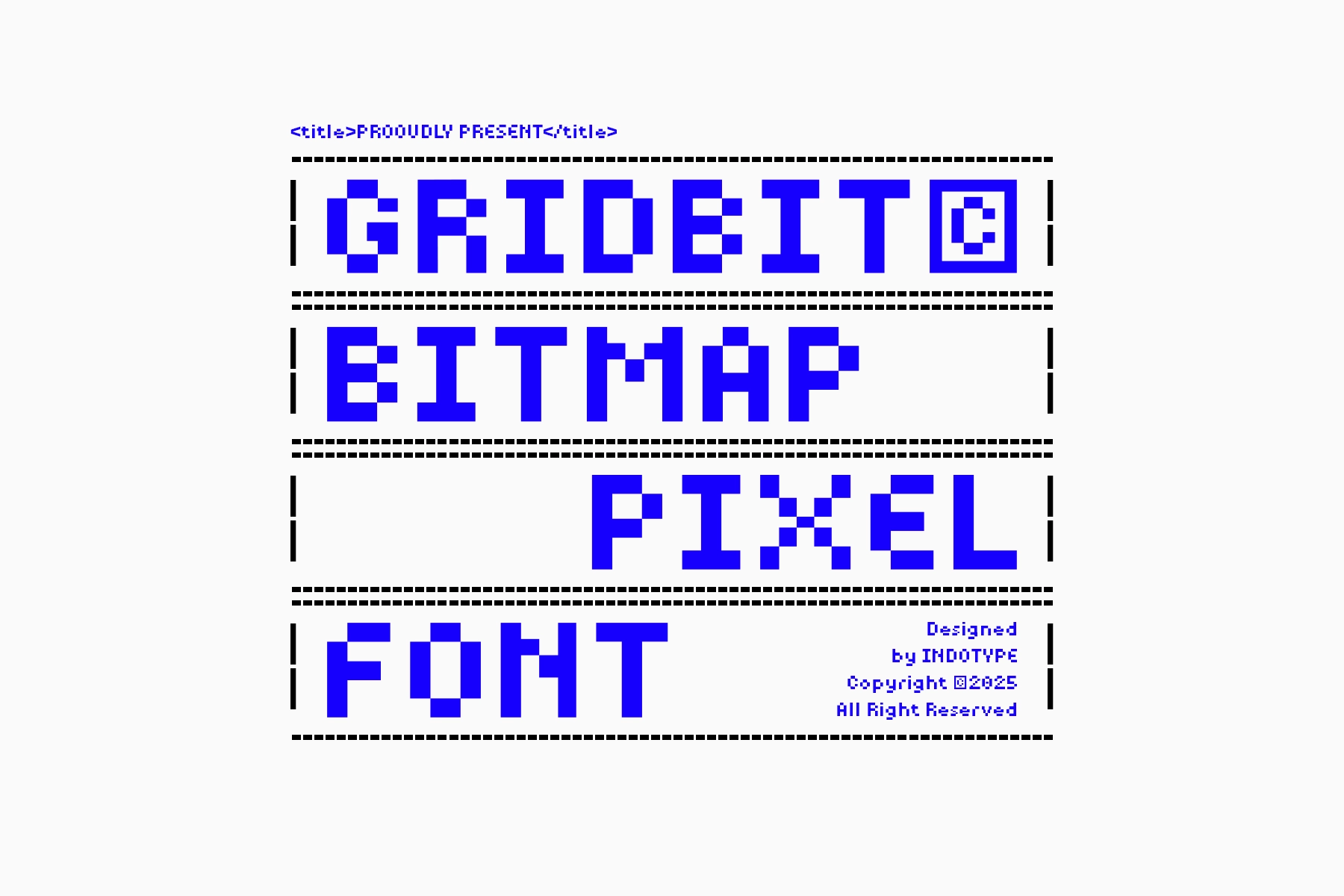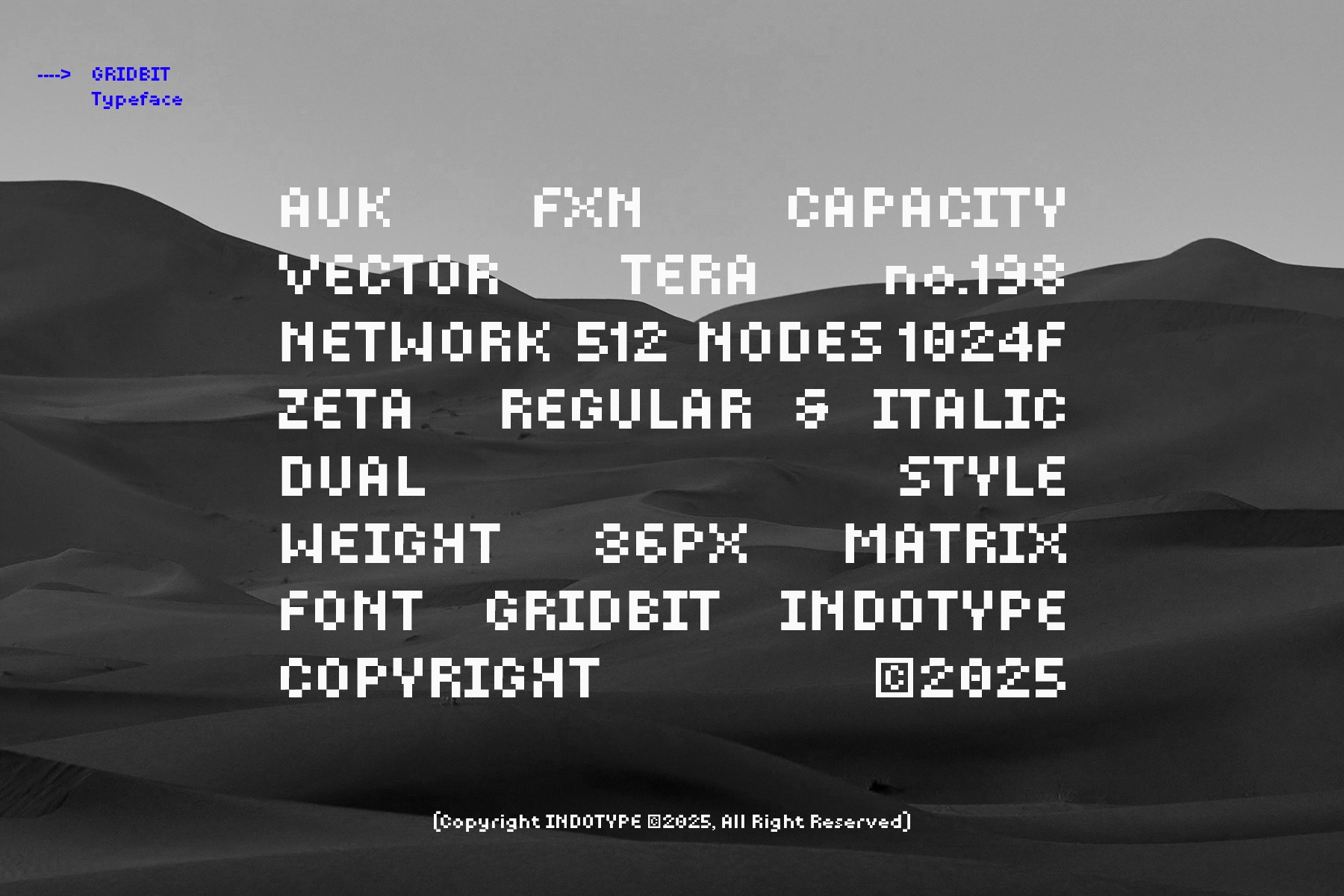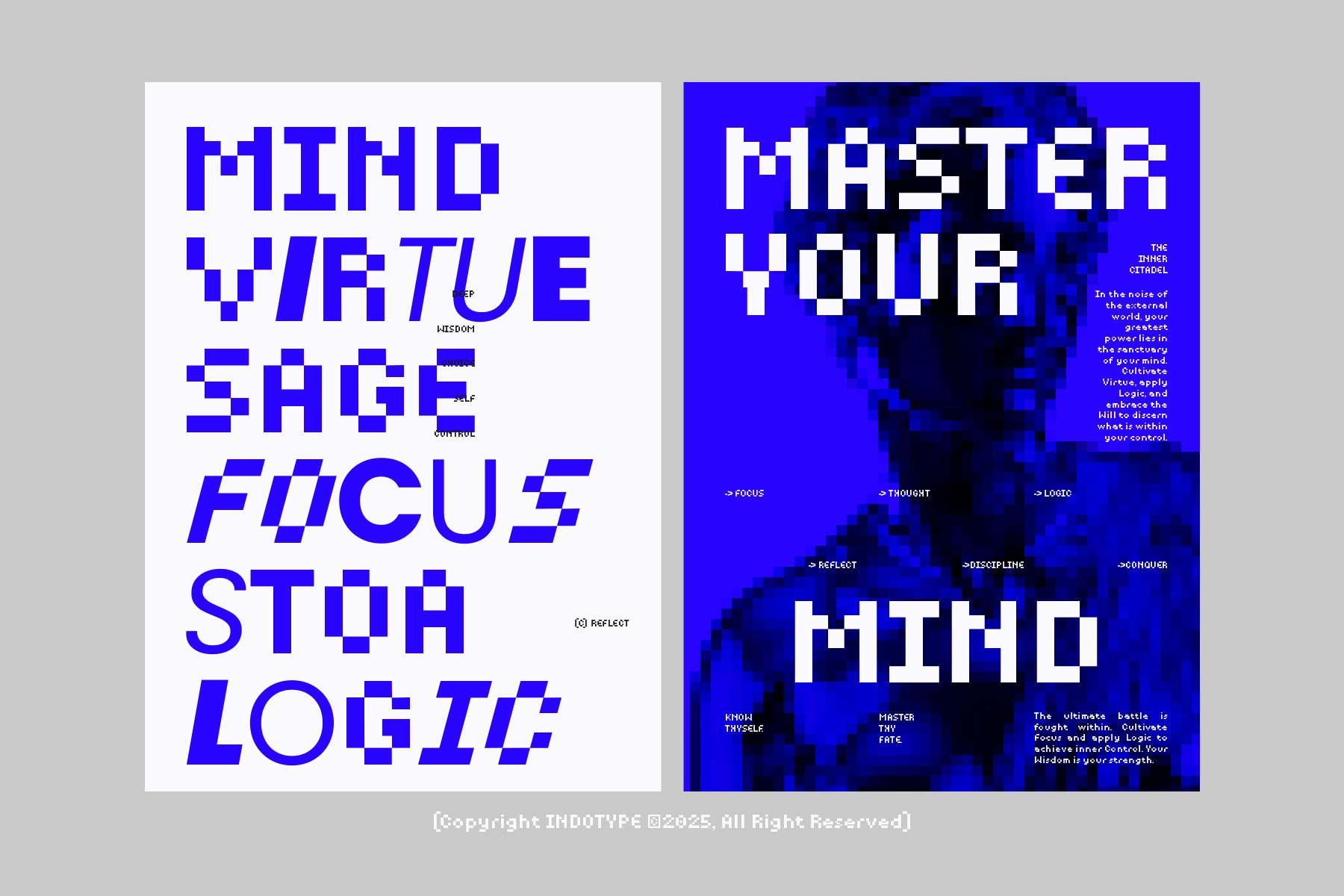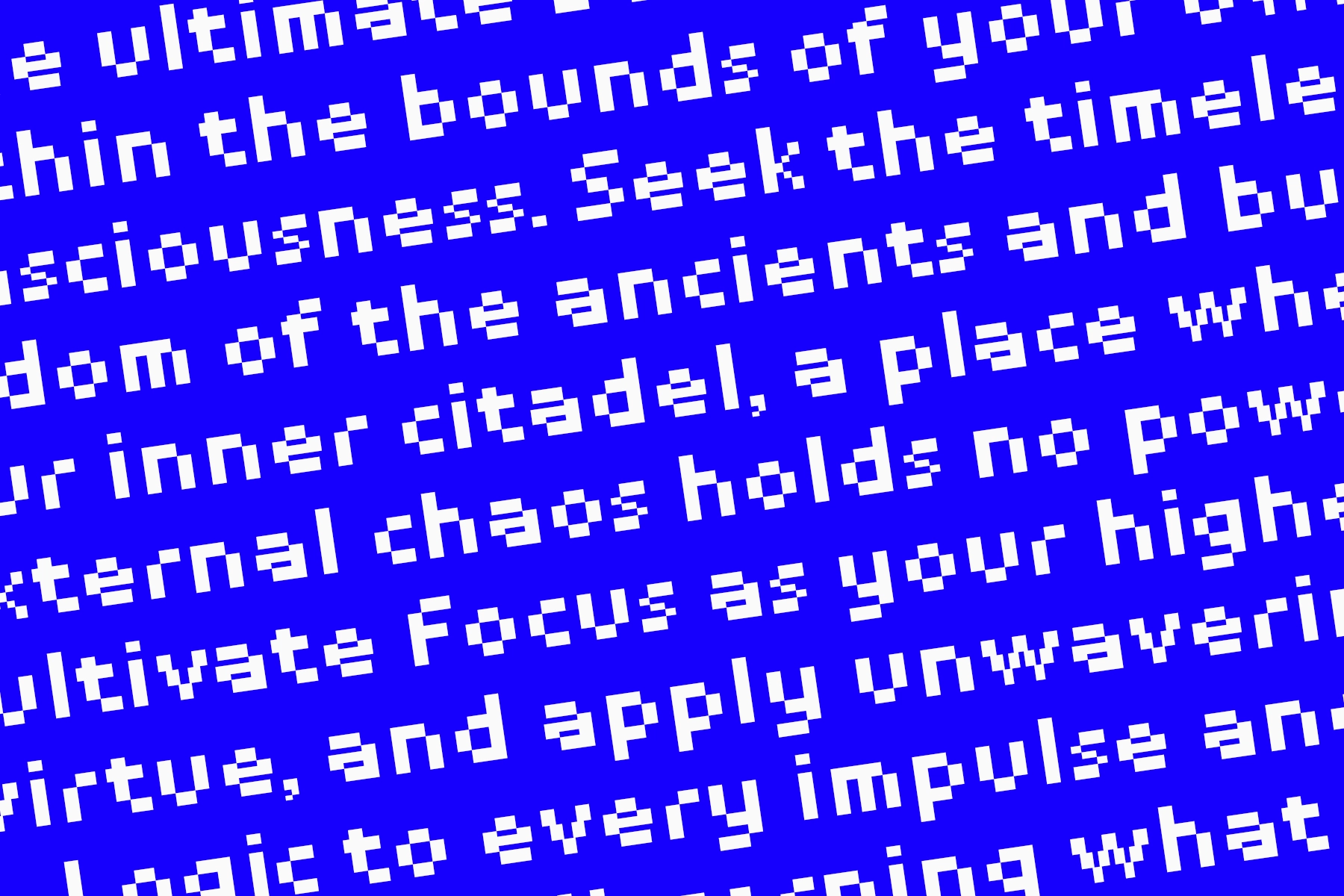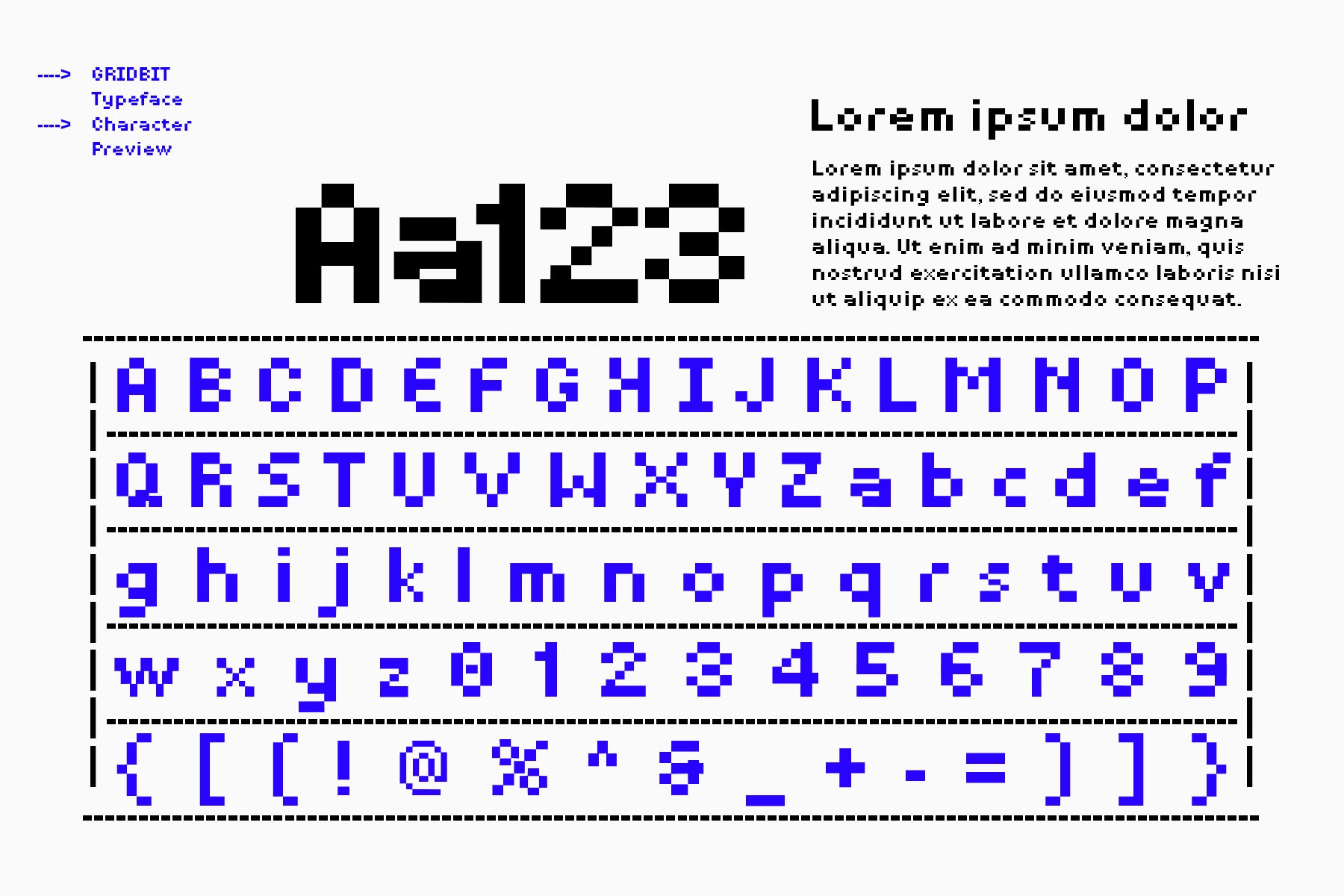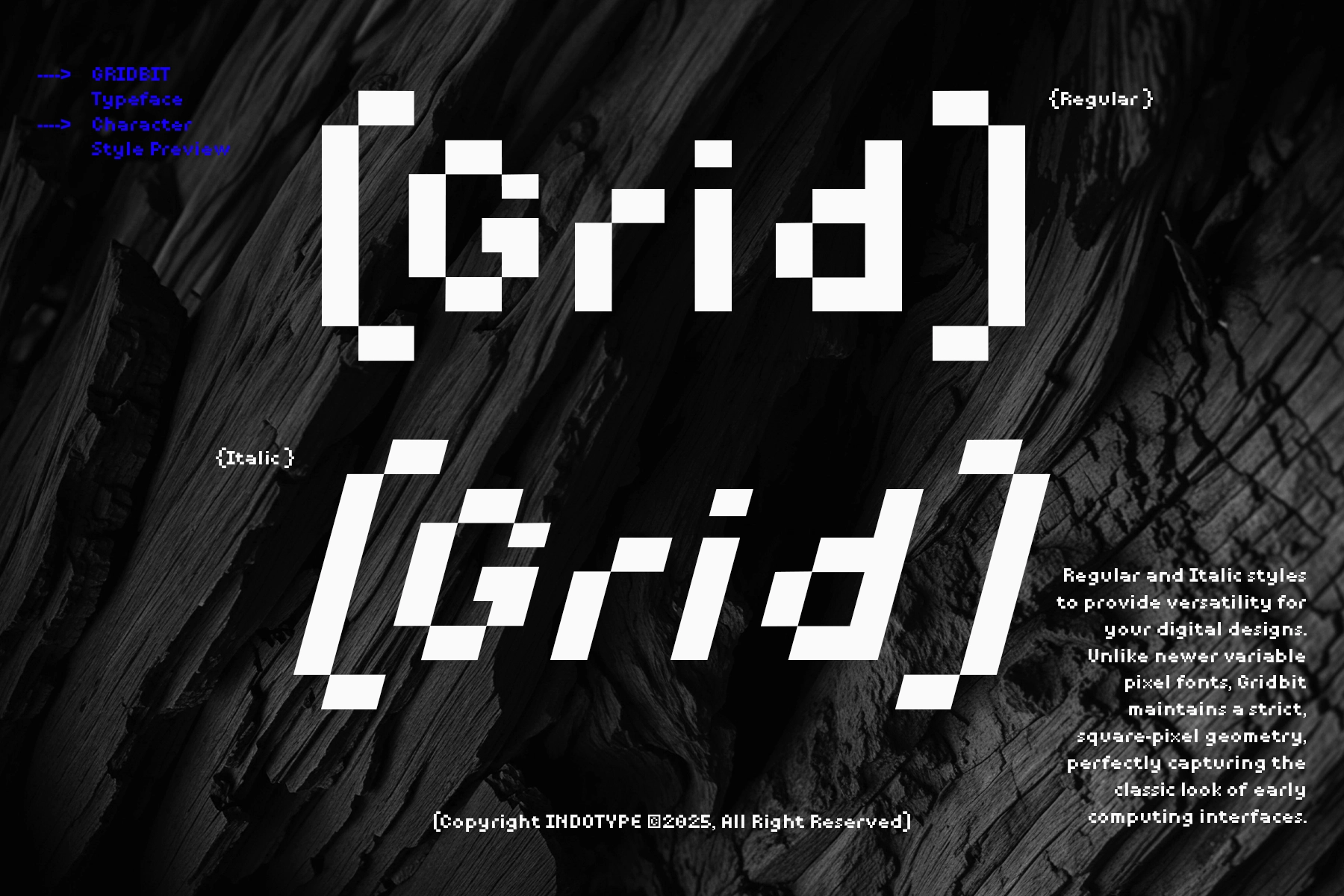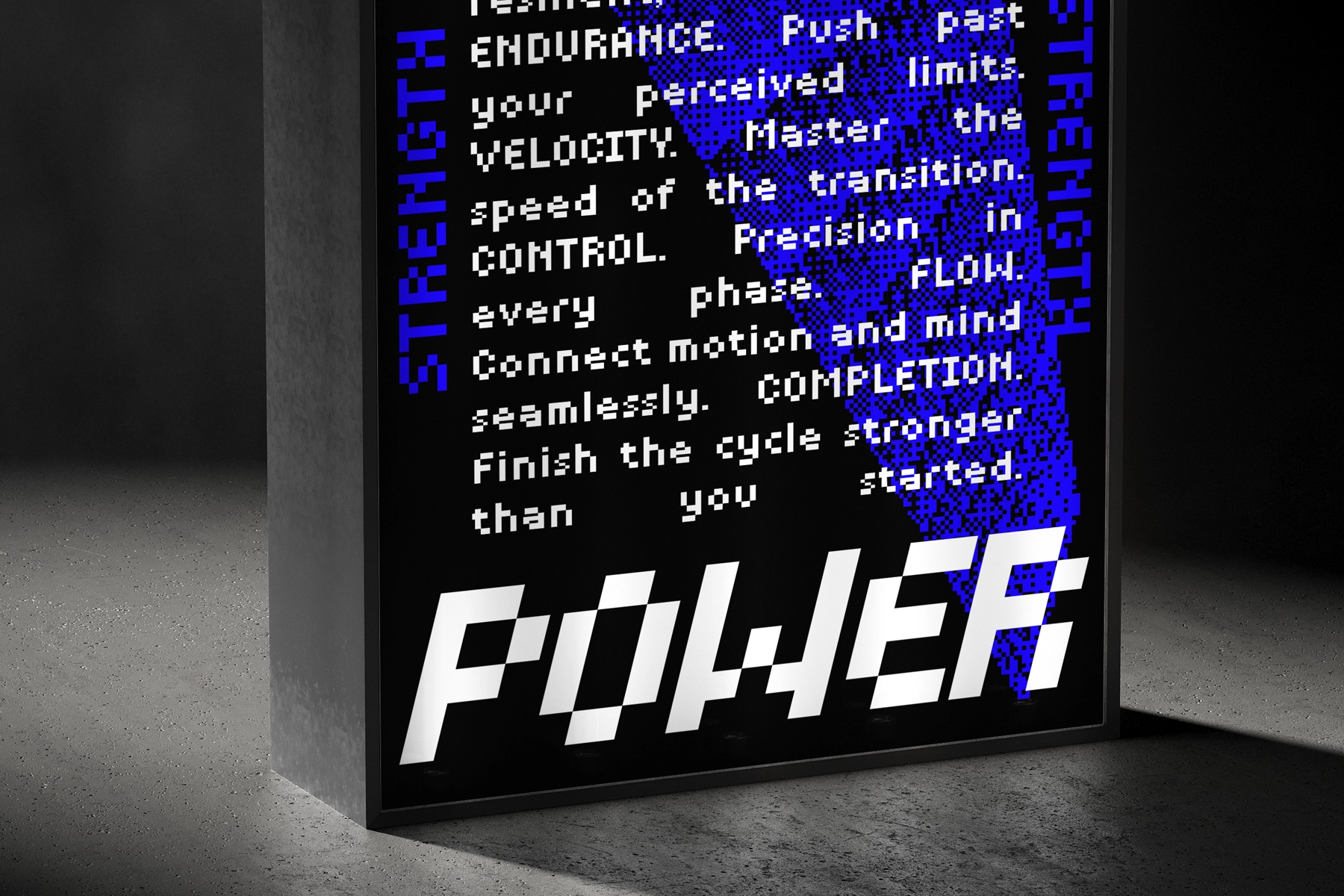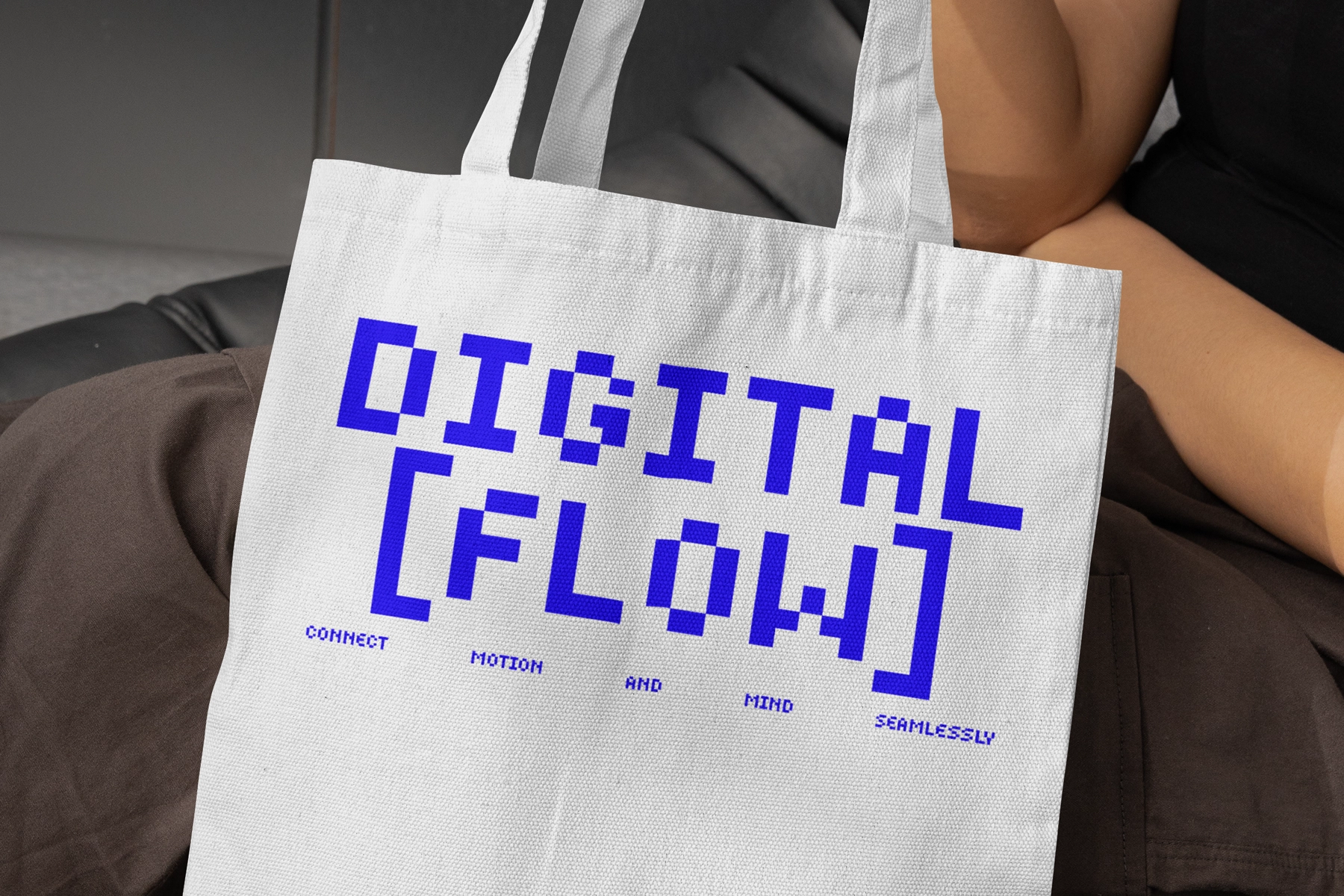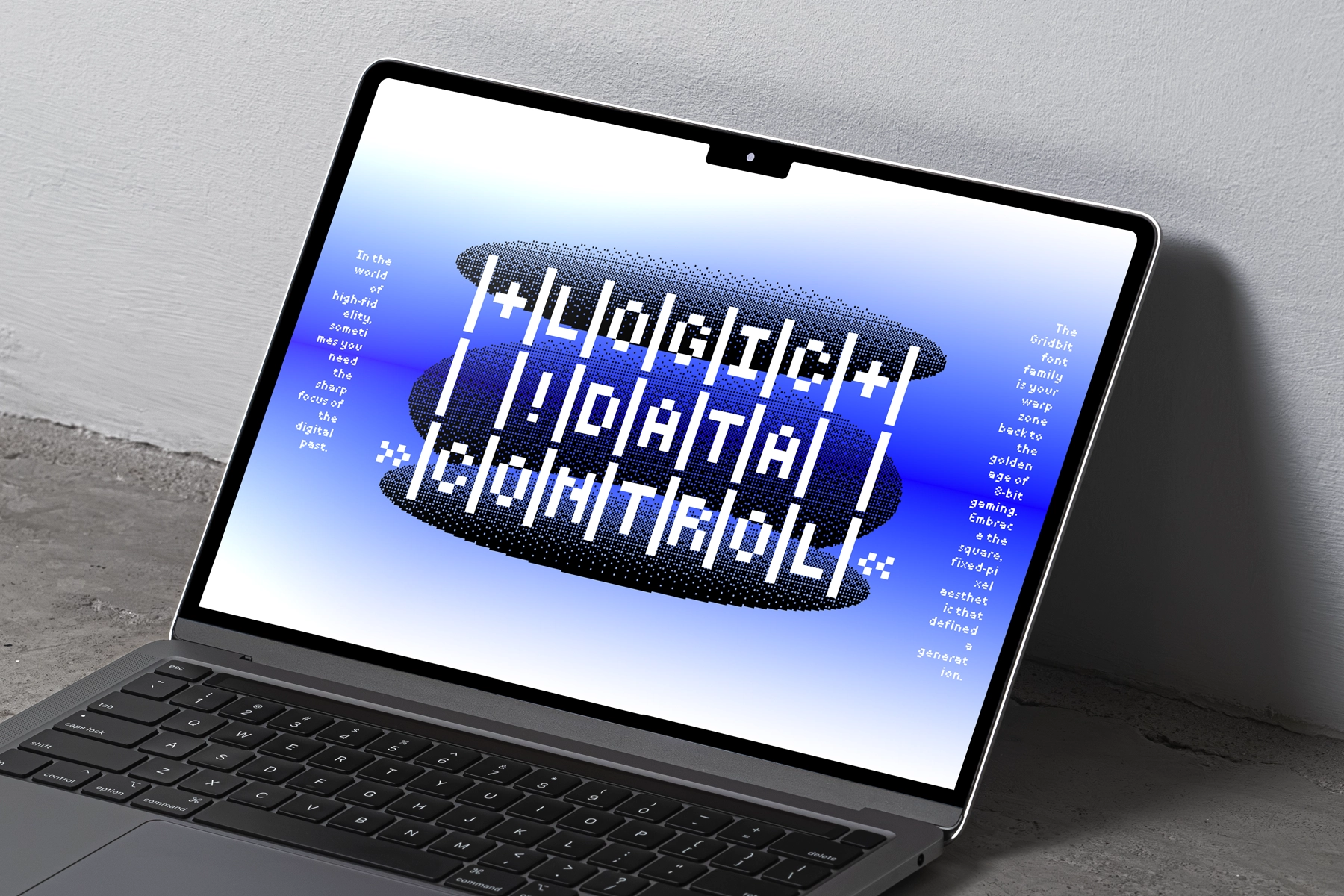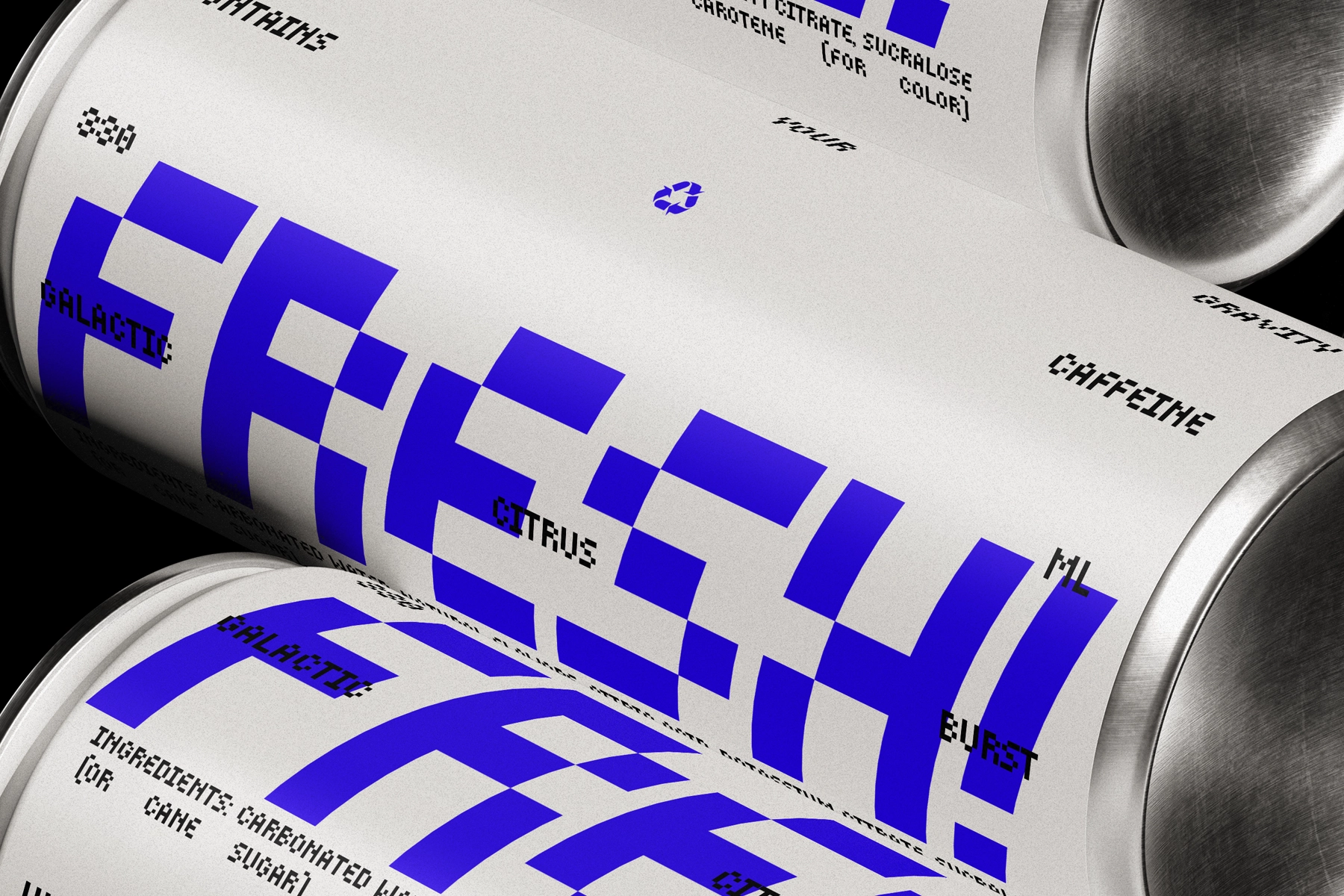
Gridbit - Digital Pixel Font
Gridbit is a pixel font built on strict square-pixel geometry — no anti-aliasing, no smoothing, every character snapped to the same bitmap grid that defined early computing interfaces and 8-bit game screens. Unlike newer variable pixel typefaces that approximate the look, Gridbit holds the constraint as a structural rule: the chunky aliased edges and fixed-resolution rhythm are the construction, not a texture applied on top. The italic pushes the same grid shapes at an angle without softening them.
It works for retro game UI and dialogue screens, cyberpunk graphics, tech and coding branding, lo-fi music visuals, digital art, and any editorial or screen design that needs the visual language of early computing to land as specific rather than decorative.